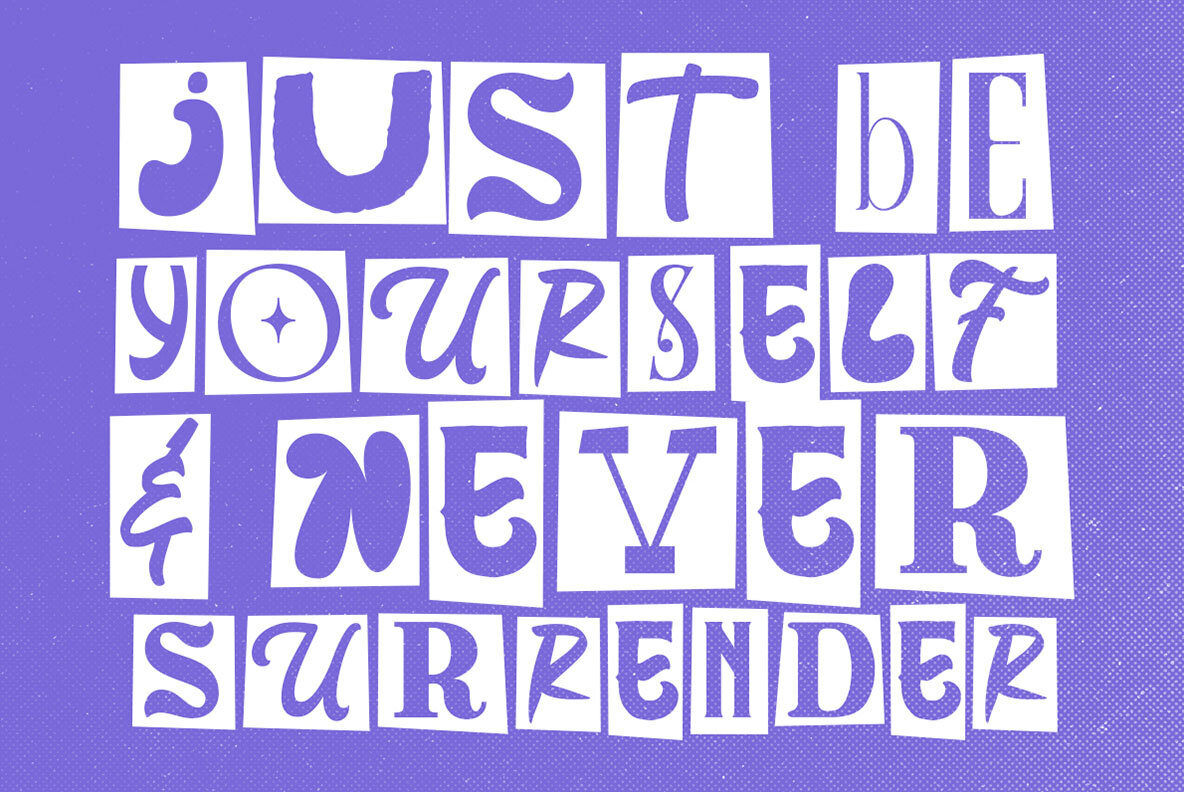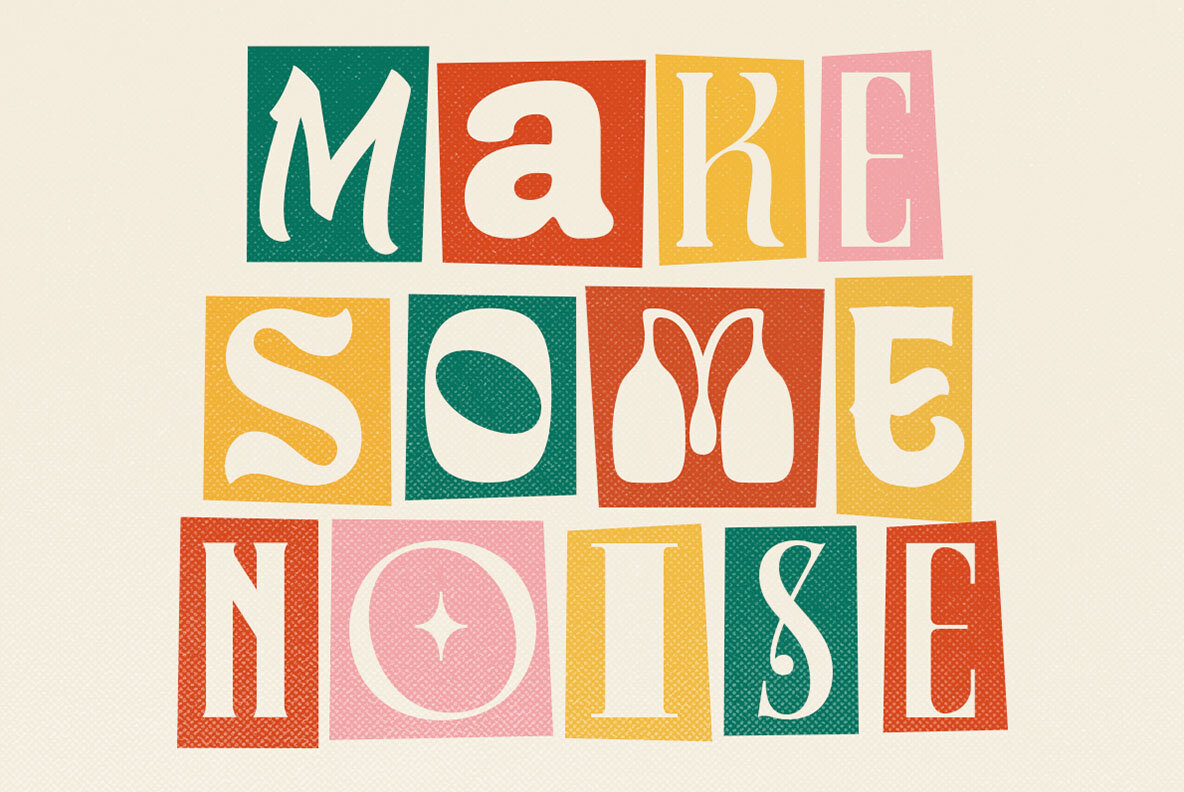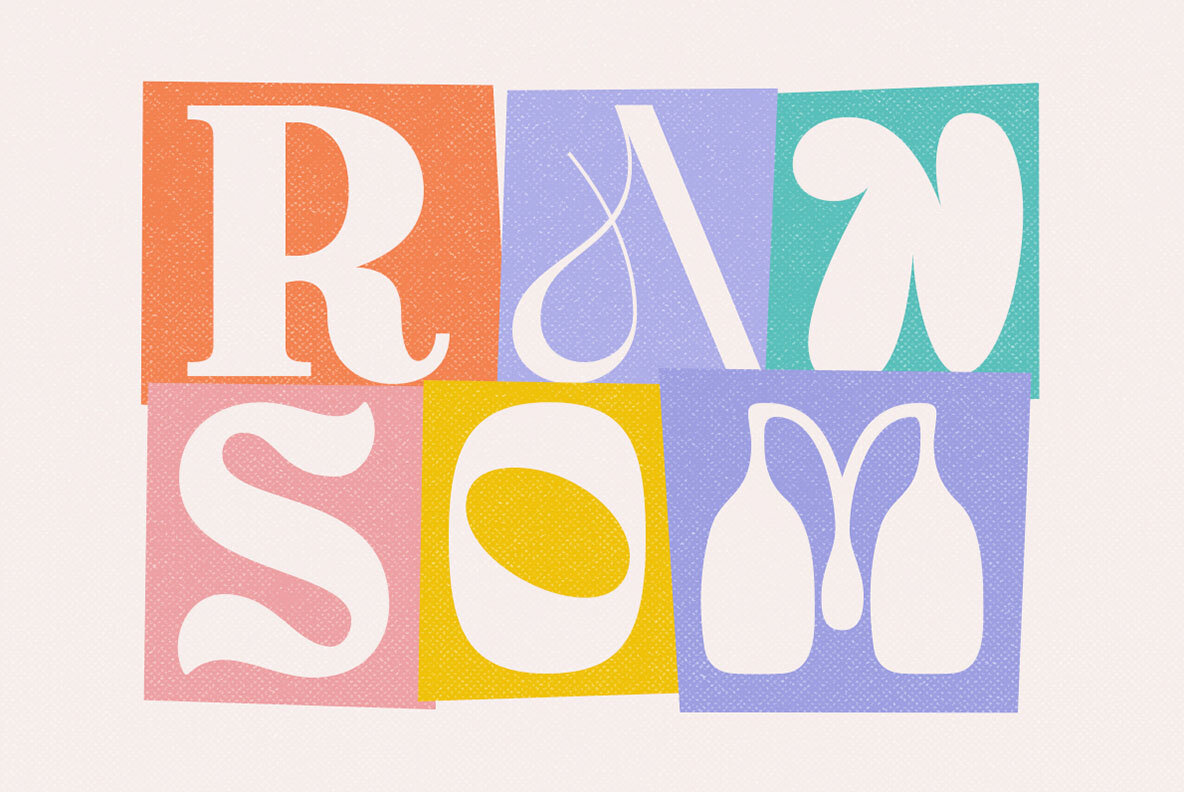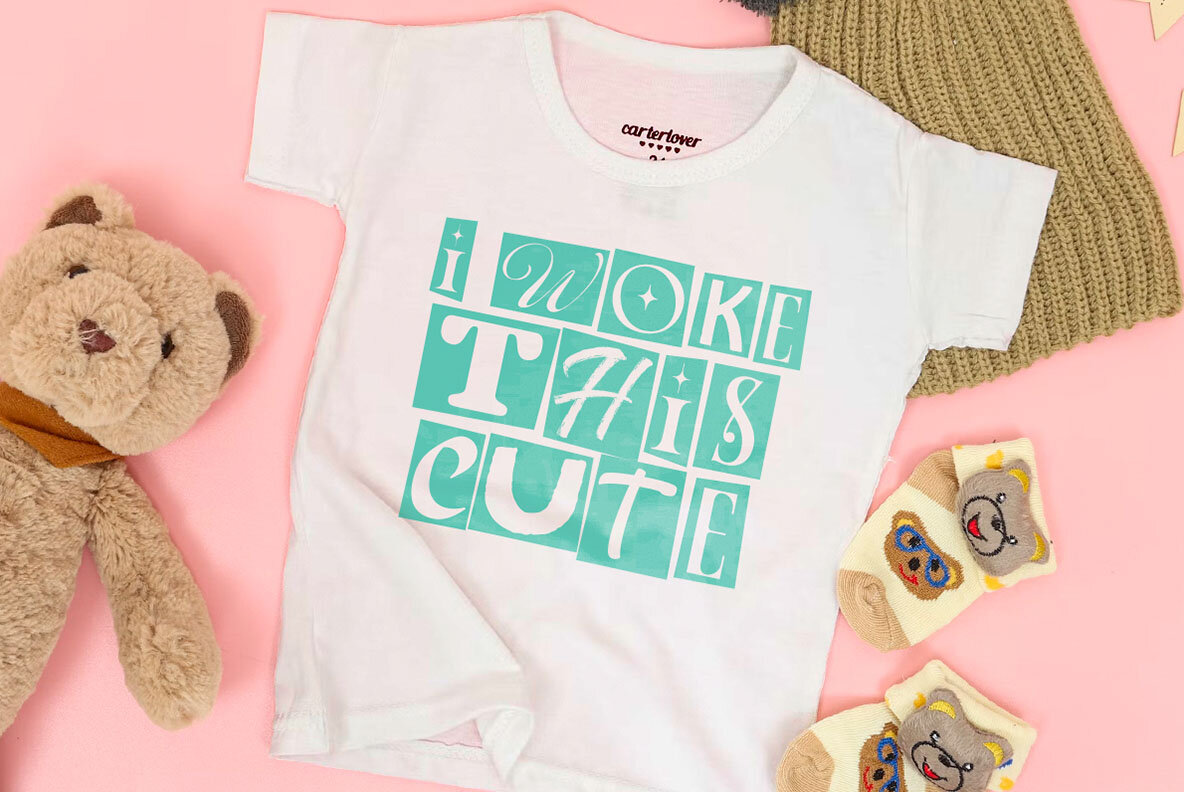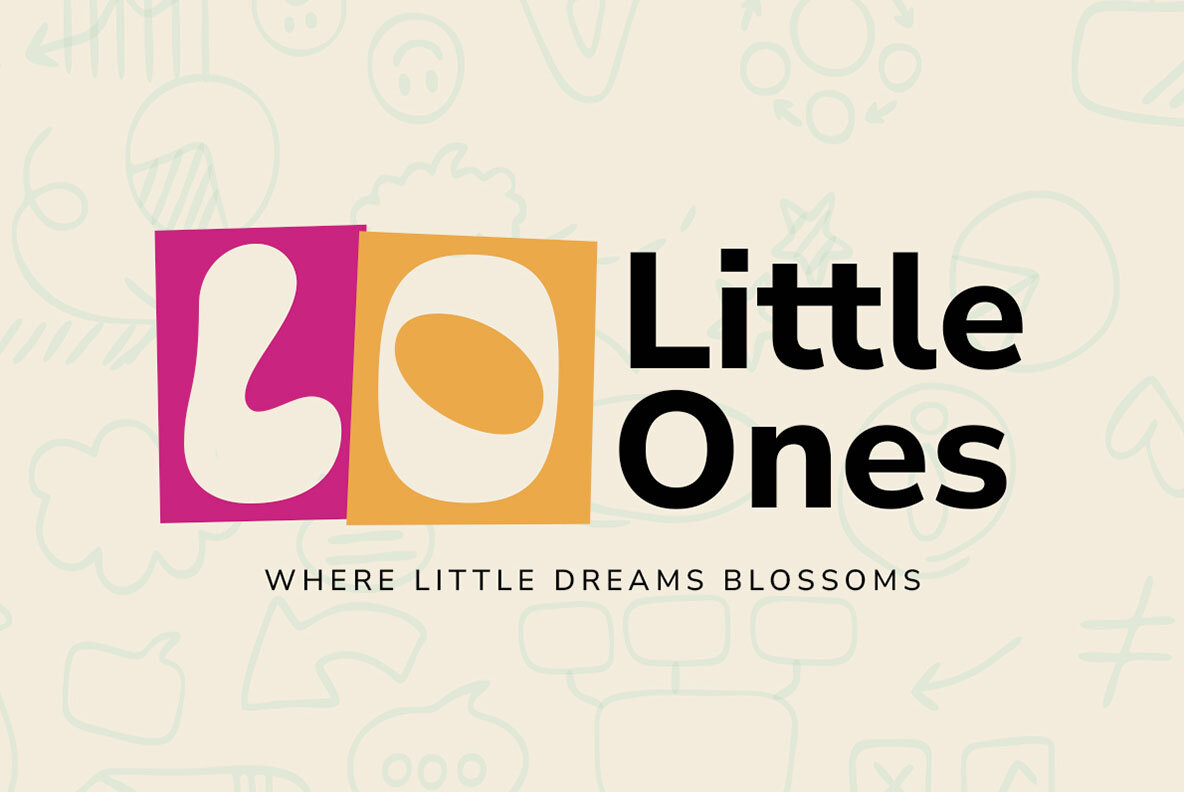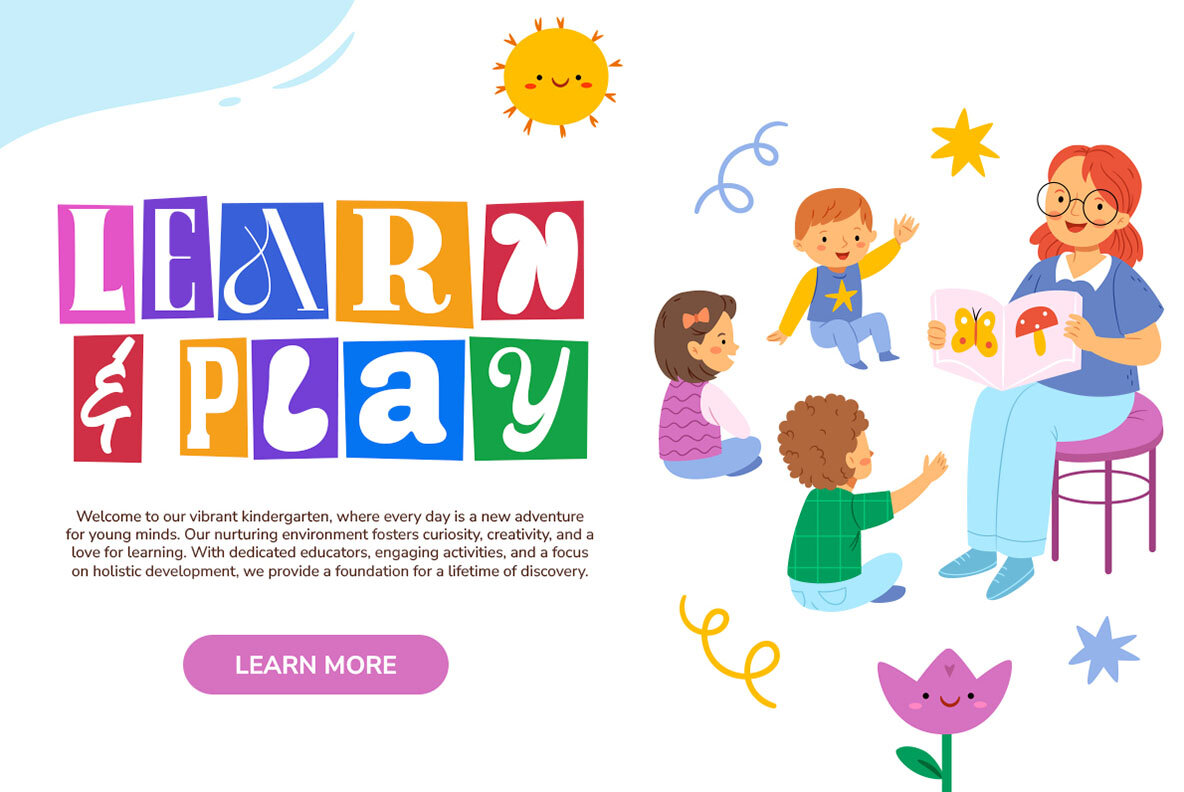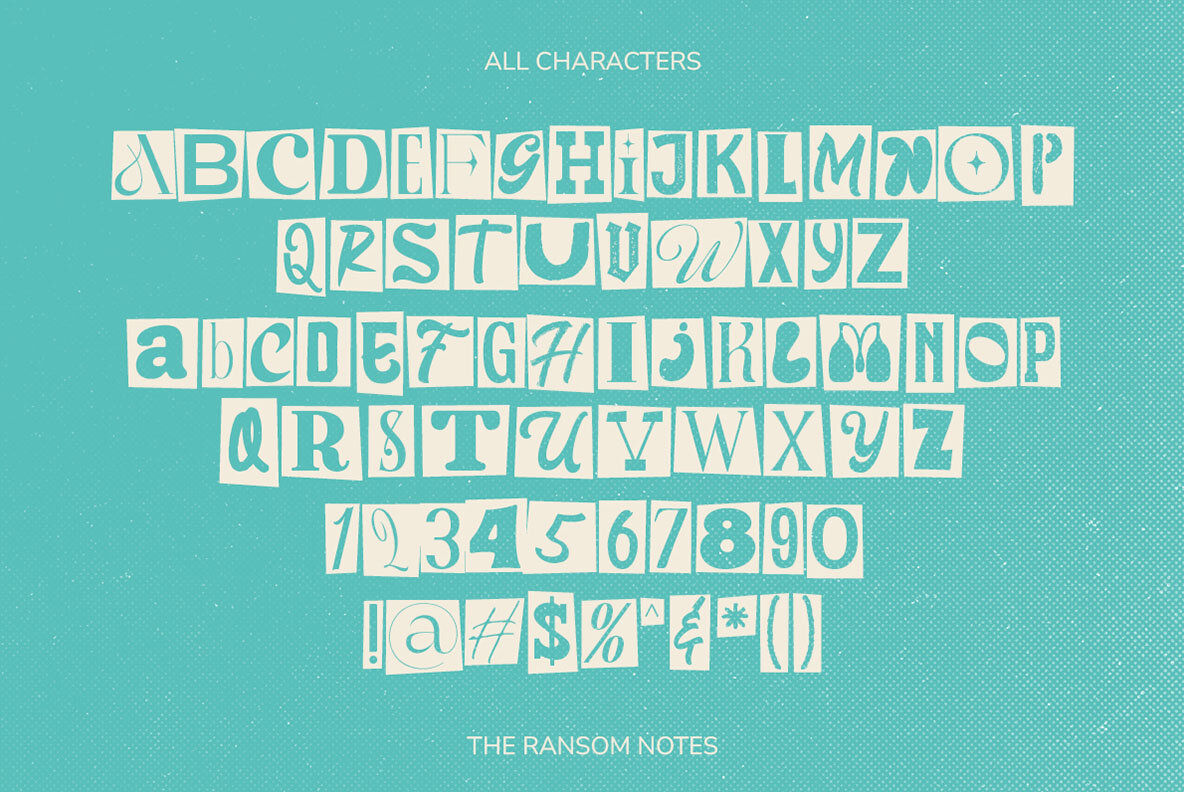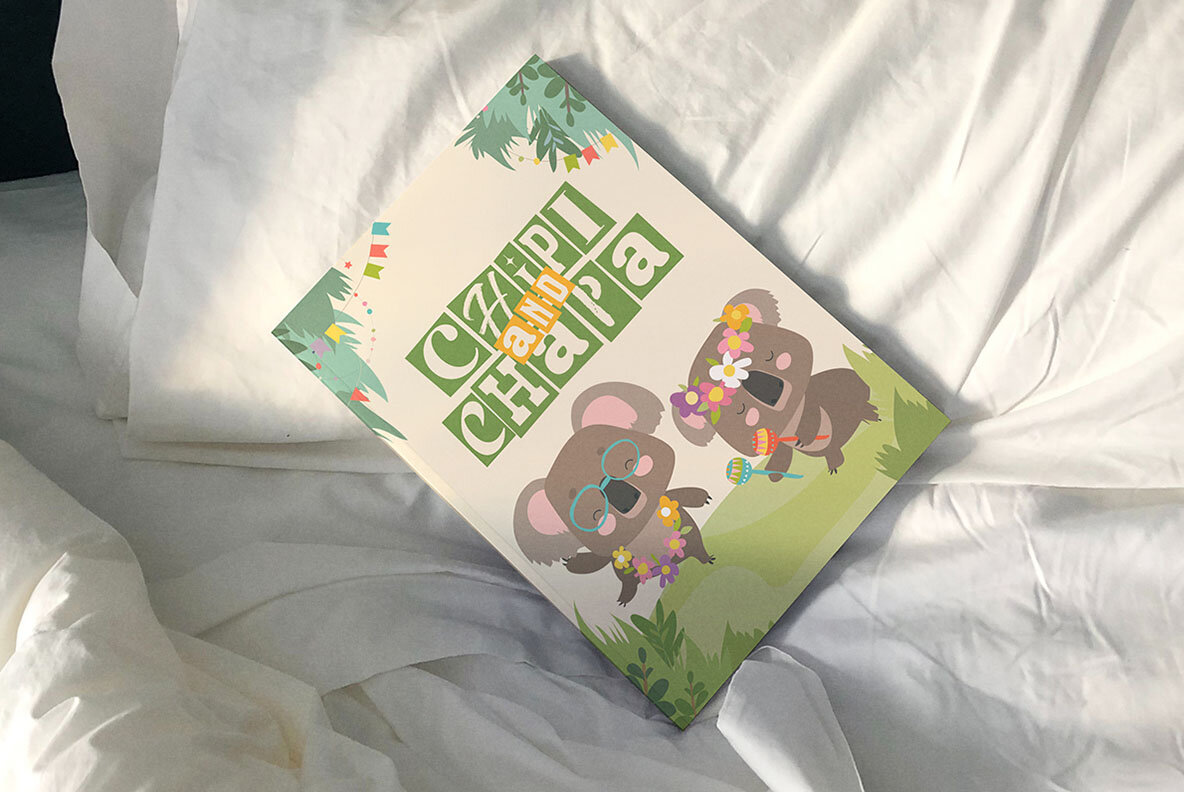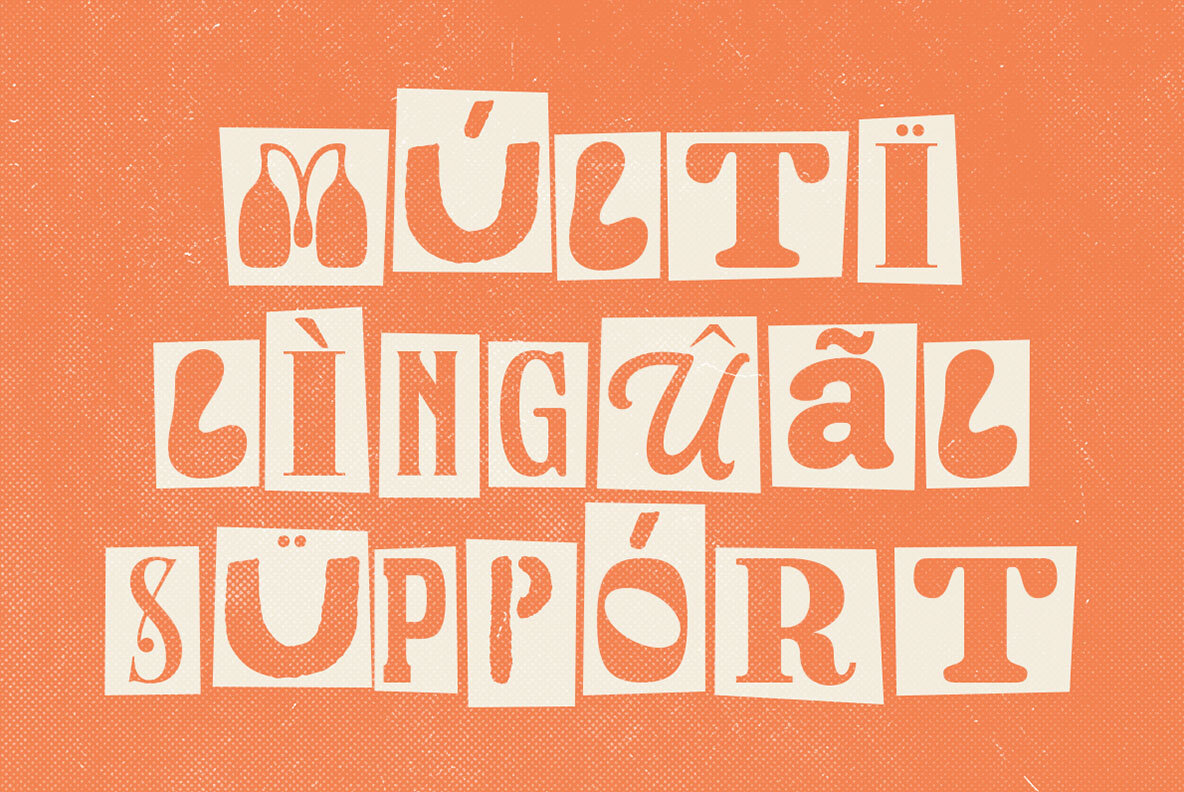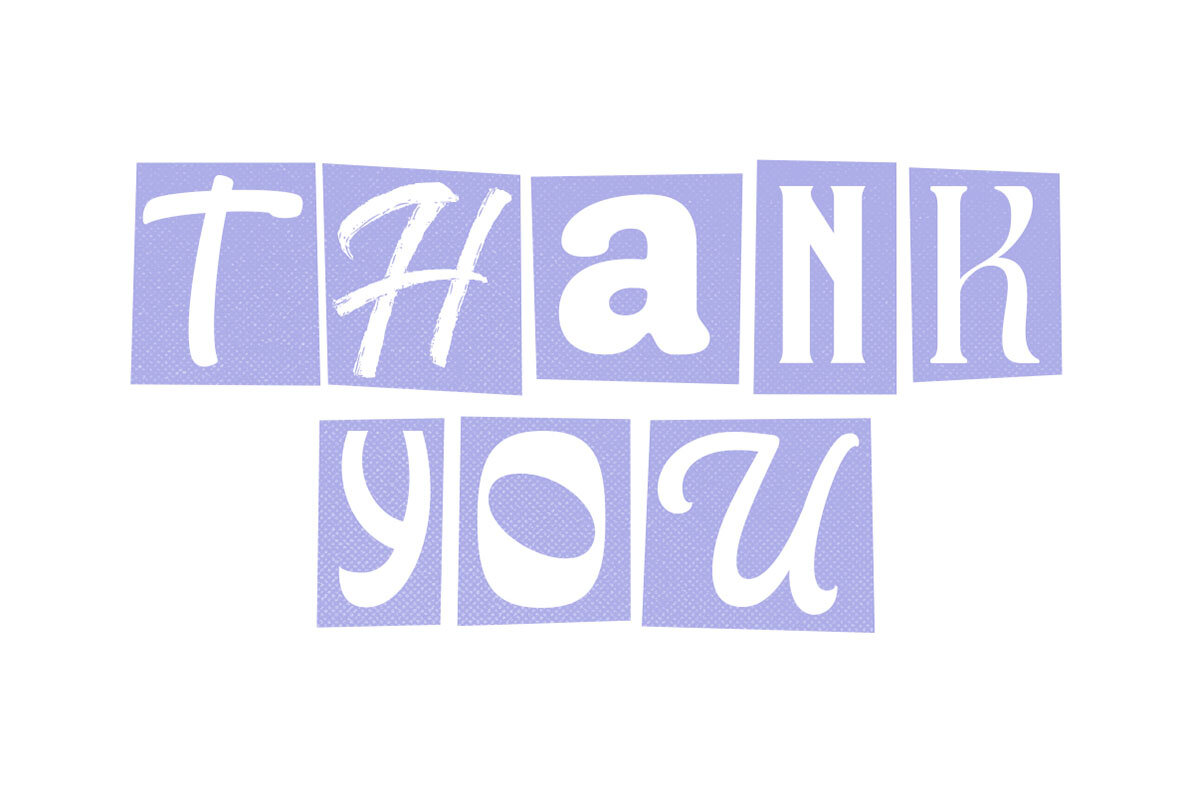
The Ransom Notes Font
The Ransom Notes Regular
The Ransom Notes is a mixed cut letterform font design. You can play around to fit the form using uppercase and lowercase mode. This font perfectly made to be applied especially in logo, and the other various formal forms such as invitations, labels, logos, magazines, books, greeting / wedding cards, packaging, fashion, make up, stationery, novels, labels or any type of advertising purpose. Features: We highly recommend using a program that supports OpenType features and Glyphs panels like many of Adobe apps and Corel Draw, so you can see and access all Glyph variations.